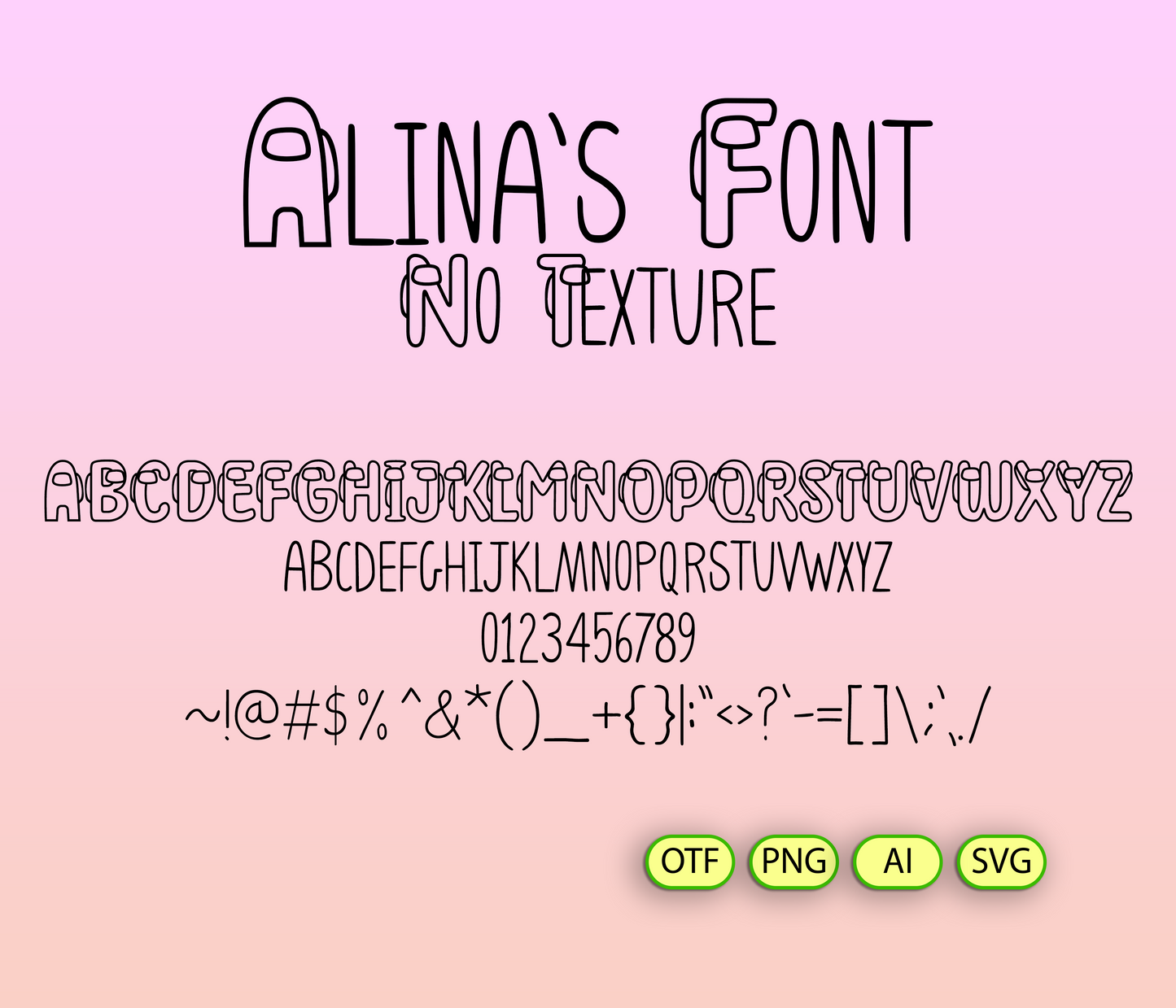
Space Mystery Game Font
Space Mystery Font: Inspired by Galactic Adventures
Immerse yourself in the thrilling world of deception and teamwork with our Space Mystery font. Perfect for fans, event planners, and designers, this font captures the playful and suspenseful essence of a popular space-themed game. Whether creating event invitations, themed merchandise, or digital content, our Space Mystery font brings the vibrant and engaging spirit to your projects.
Our Space Mystery-inspired font features clean, rounded lines and playful characters reflecting the game's vibrant and whimsical style. This versatile font is ideal for:
- Event Invitations: Engaging invites for game nights, themed parties, or esports events.
- Merchandise Design: T-shirts, posters, and accessories capturing the game's essence.
- Digital Media: Enhance websites, blogs, and social media with eye-catching headers and graphics.
- Educational Materials: Presentations, worksheets, and content focused on teamwork, strategy, or gaming.
- Personal Projects: Add playful mystery to scrapbooking, DIY crafts, or home decor inspired by crewmates and impostors.
Our Space Mystery font not only pays tribute to the thrilling game but also empowers you to infuse your designs with its playful and suspenseful spirit. Ready to take your creative projects on a journey through space? This font is your key to unlocking a world of fun and captivating design.